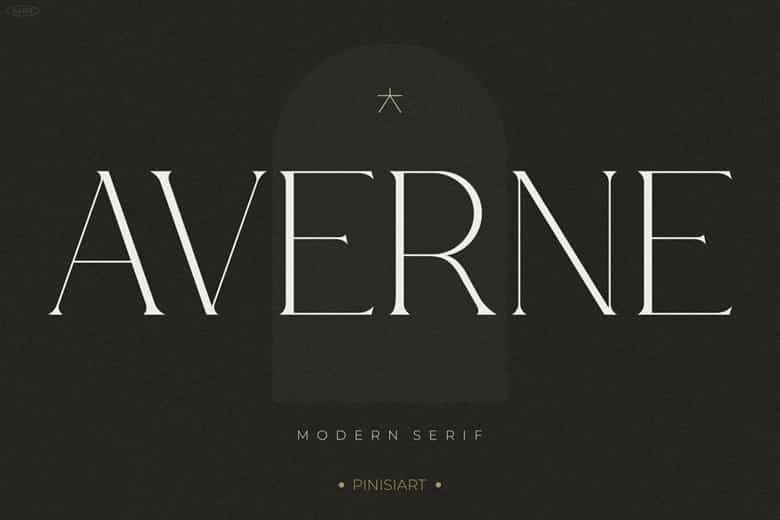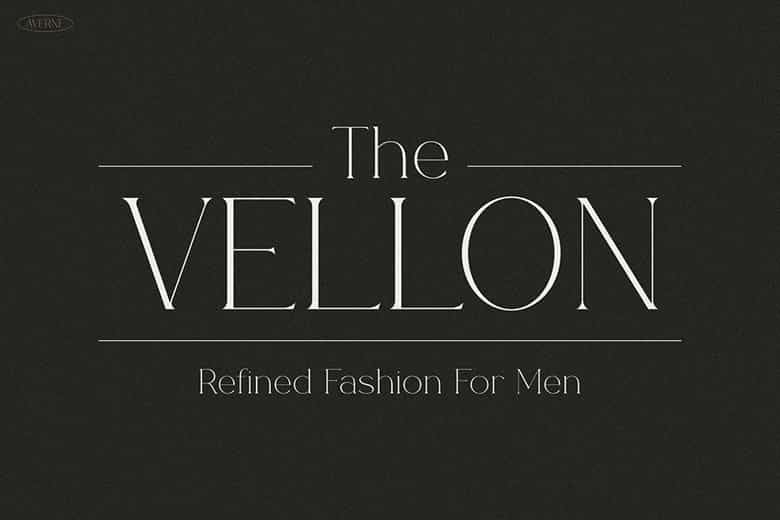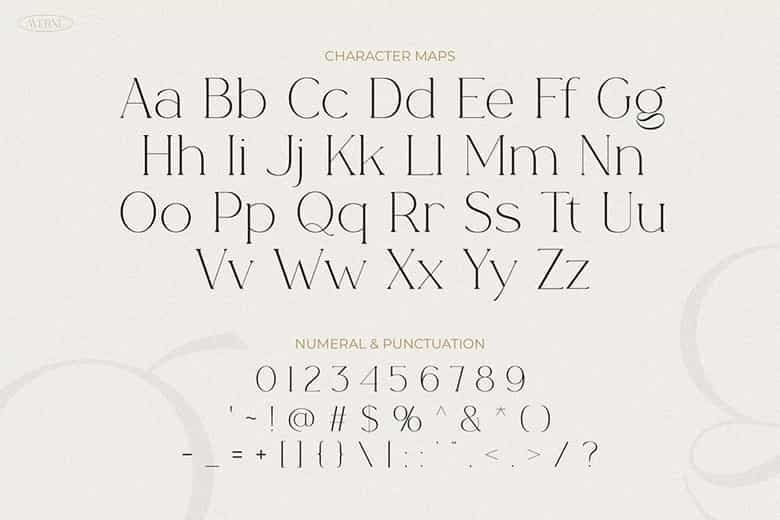
The presence of Averne in a design gives it a tidy elegance and a modern look right away. The timeless elegance of this font meets with its clean, simple forms, helping it be attractive and easy to read. As a result, the site looks nice and also strengthens your overall message. When designing in digital or print media, Averne makes every component clearer, more interesting and more charming.